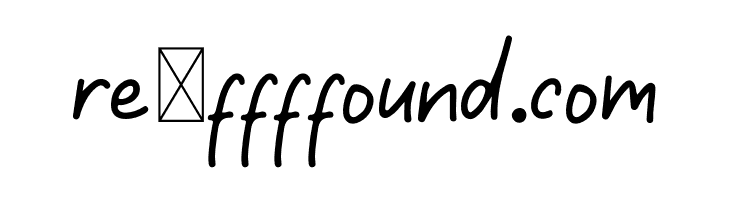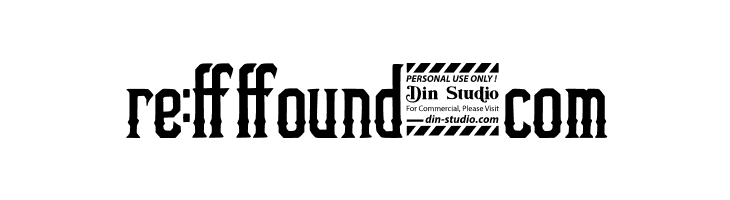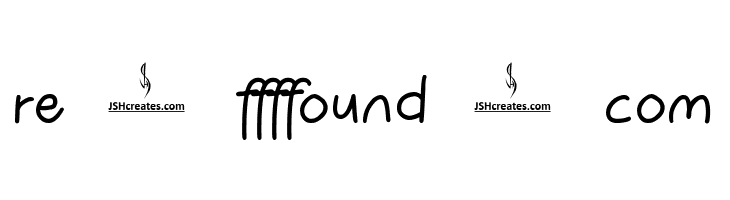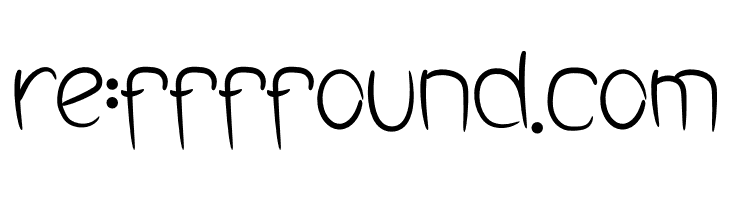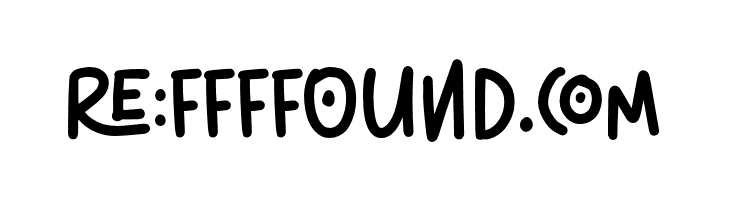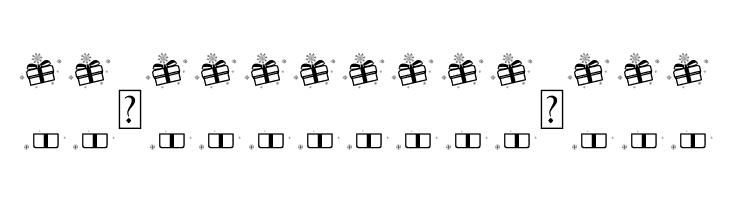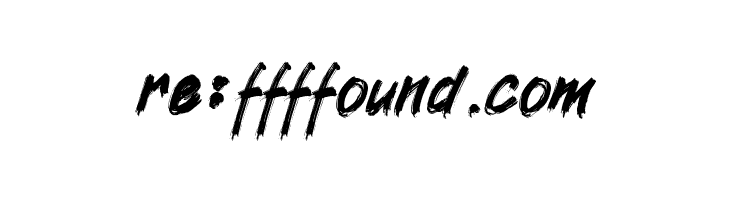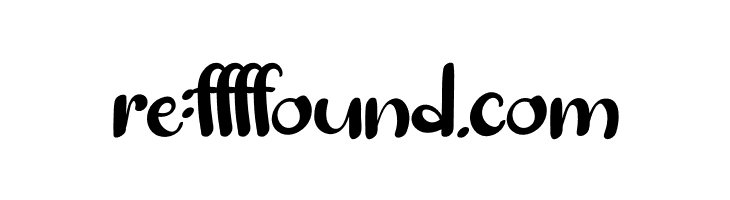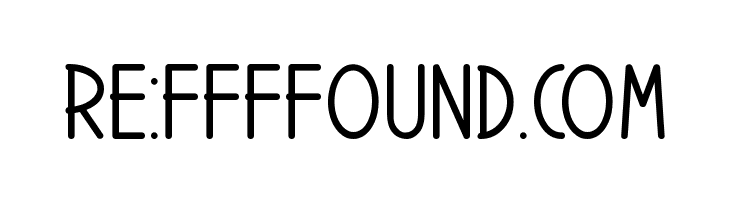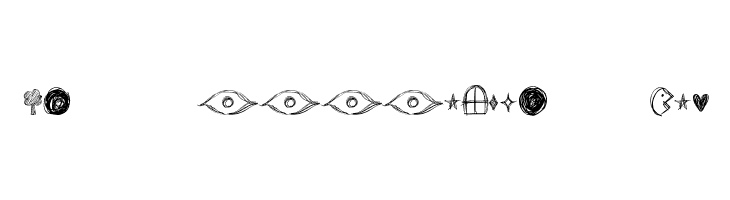
A playful, casual handwritten font with smooth, flowing lines and a friendly appearance.
A bold, decorative font with sharp, angular edges and a vintage flair.
A modern, handwritten script font with fluid, elegant strokes.
A playful, handwritten font with smooth, rounded edges and casual letterforms.
A playful and whimsical font with rounded, flowing letterforms.
A playful, hand-drawn font with bold, rounded characters.
A bold, playful handwritten font with a whimsical and friendly style.
The image features decorative symbols, not a functional font.
A bold, dynamic brush script font with expressive strokes and a hand-painted look.
A playful, bold, and rounded font with a whimsical, hand-drawn style.
A playful, rounded font with smooth curves and consistent stroke width.
A bold, comic book-inspired font with dynamic, exaggerated letterforms.
Hand-drawn, whimsical doodle symbol font.
A bold, gothic-inspired font with sharp, angular edges and a dramatic aesthetic.
A playful, handwritten script font with a modern and energetic style.
A bold, playful font with a spooky, hand-drawn style.
A whimsical, hand-drawn font with playful, irregular characters.
A modern, geometric sans-serif font with a clean and balanced design.
A bold, brush-style font with a dynamic and energetic appearance.
A bold, playful serif font with rounded serifs and a vintage charm.
A playful handwritten font with smooth, rounded strokes and a casual style.
A classic serif font with elegant, thin strokes and a refined appearance.
A modern serif font with classic elements and a versatile design.
Elegant serif font with a classic italic style.
A classic serif font with elegant strokes and a refined appearance.
A refined serif font with elegant lines and balanced proportions.
A classic serif font with elegant, refined letterforms and sharp serifs.
A cursive, handwritten font with elegant, flowing strokes.
A bold, playful font with rounded, outlined characters perfect for fun and energetic designs.
A playful, hand-drawn font with a sketch-like appearance and irregular strokes.
A playful, hand-drawn font with a sketch-like, casual style.
A bold, expressive brush-style font with a hand-painted look.
A whimsical, hand-drawn font with a playful, storybook-like style.
A playful, bold handwritten font with thick strokes and rounded edges.
A bold, brush-like font with an organic, hand-drawn style.